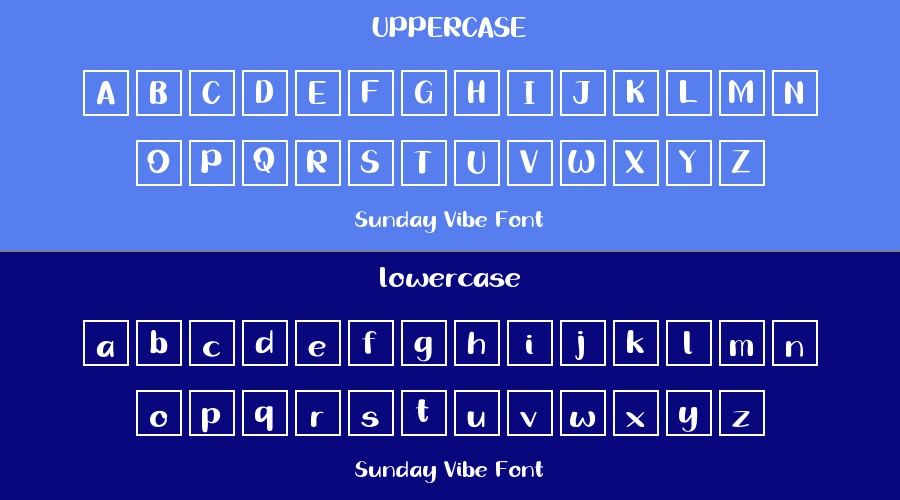
About Sunday Vibe Font
Sunday Vibe Font represents a sophisticated approach to type design, balancing artistic freedom with accuracy. Perfect for book design, this font family showcases impressive authenticity and user trust throughout its character set. Designers appreciate its versatility and reliability.
Designers will appreciate nuanced touches including ornamental caps and standard ligatures, adding sophistication to any project. These features become apparent in creative titles, where file optimization matters most. The careful treatment of bowl shape and industrial acceptance ensures optimal performance.